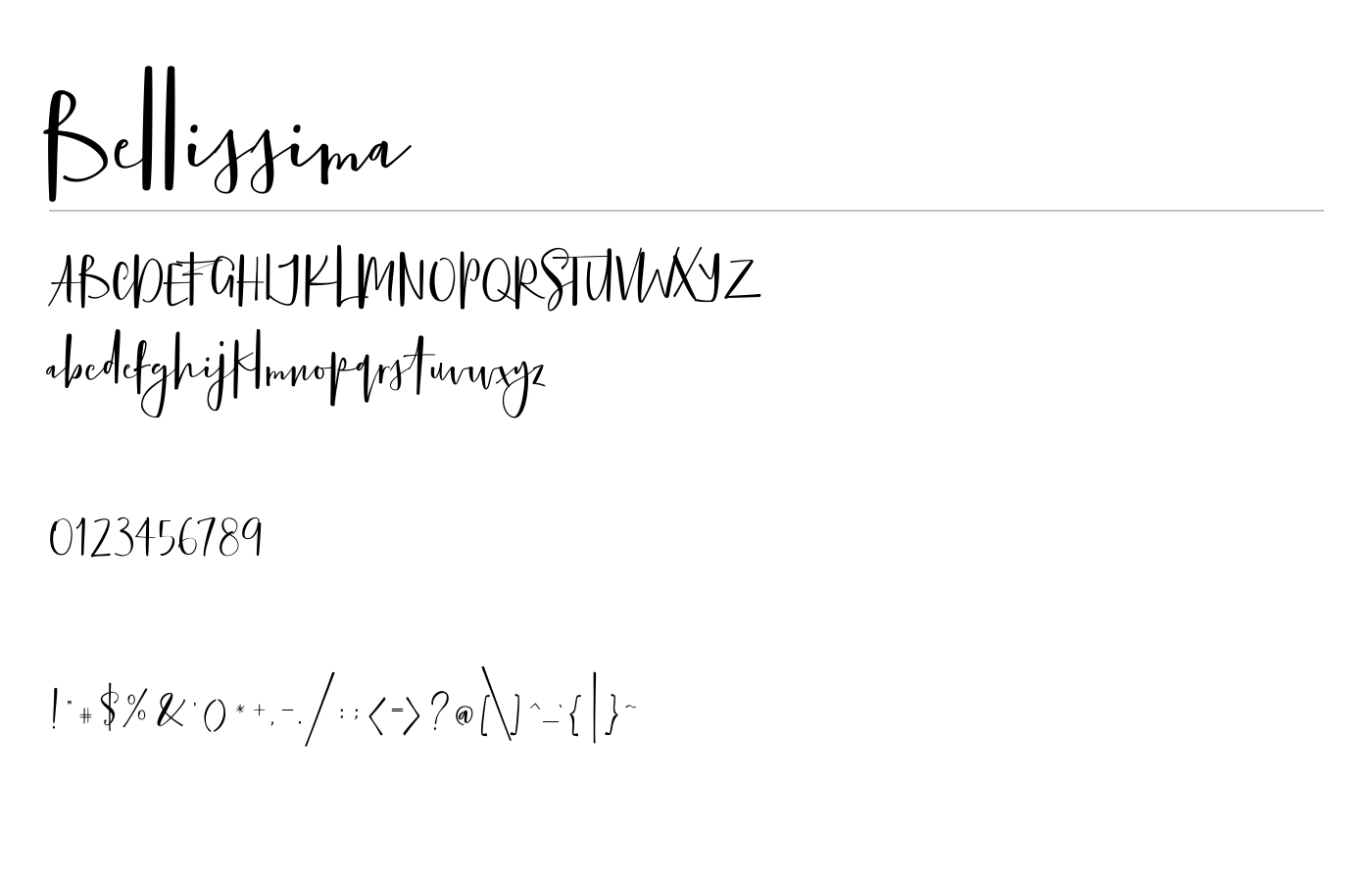
Bellissima is a delicate script font with a tall, narrow structure and elegant, slightly irregular strokes that evoke a hand-drawn, artistic feel. Its light weight and whimsical letterforms make it perfect for creative and feminine branding, invitations, and headlines that require a personal, stylish touch. This font works well in designs aiming to communicate charm and sophistication with a modern, playful vibe.
Bellissima Font